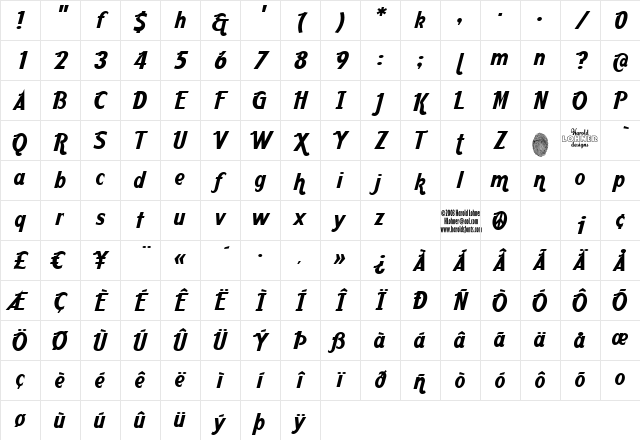
Aardvark Cafe Regular
Design Context for Aardvark Cafe
Aardvark Cafe is a composed and adaptable typeface that performs quietly and consistently across a wide range of design contexts.